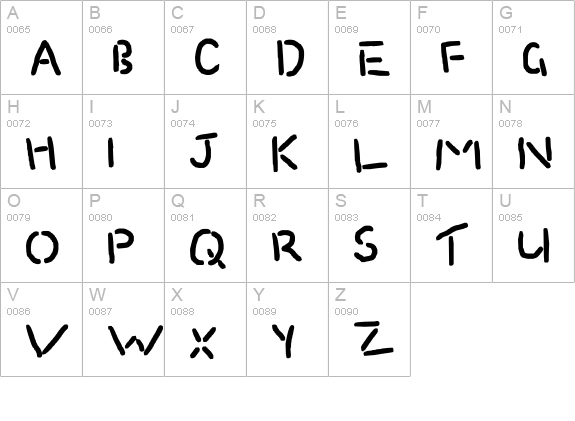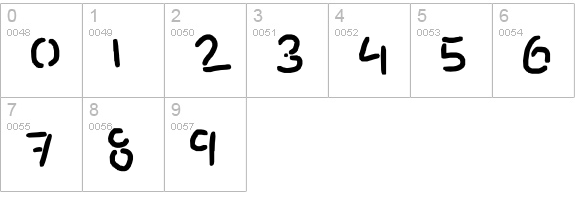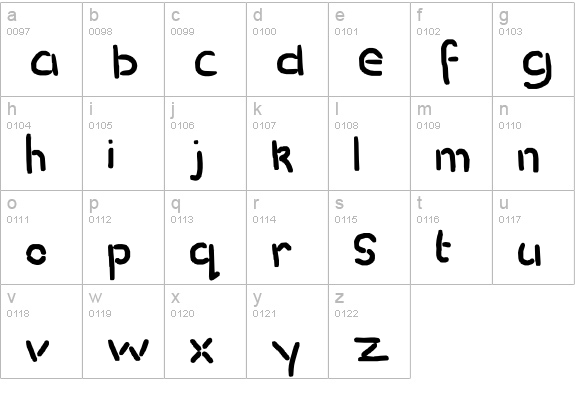
Introducing the stunning and versatile Stencil Pencil Font, a creative typeface that effortlessly combines the boldness of stencil designs with the elegance of hand-drawn lettering. This unique font is perfect for all your artistic projects, adding a touch of authenticity and flair to any design. The Stencil Pencil font features a distinct and edgy style, with each character meticulously crafted to resemble hand-drawn stencils. Its imperfect lines and rough edges give it a charming and organic feel, making it an ideal choice for a wide range of applications, from logo designs to packaging, posters, and more. Whether you're a graphic designer looking to add a touch of uniqueness to your projects or a creative individual seeking to express your artistic side, the Stencil Pencil font is the perfect addition to your font library. Its versatility allows it to be used in various design styles, from vintage and retro to modern and urban. But what sets the Stencil Pencil font apart is not only its exceptional design but also its accessibility. This font is available for free download exclusively at FontsMarket.com. Yes, you read that right - completely free! Now you can enjoy the beauty and creativity of the Stencil Pencil font without any cost, allowing you to explore new possibilities and take your designs to the next level. So, don't miss out on this incredible opportunity to enhance your creations with the Stencil Pencil font. Download it now for free at FontsMarket.com and let your imagination run wild as you bring your designs to life with this captivating and one-of-a-kind typeface.